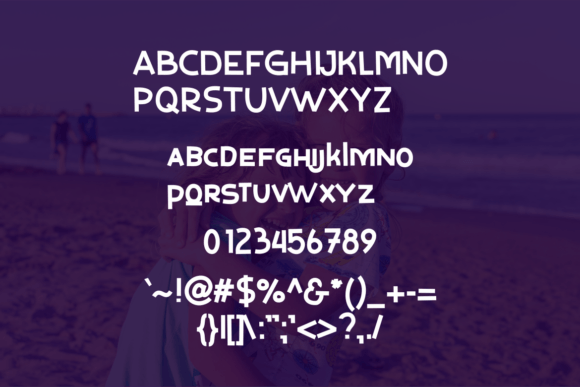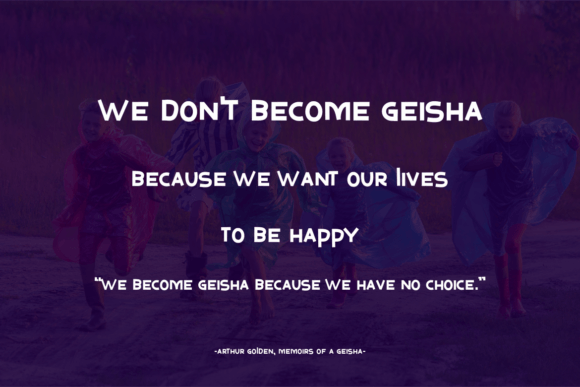
Introducing Artapa Font: Add a Touch of Whimsy to Your Designs
Are you tired of using the same old fonts in your designs? Do you want to add a touch of personality and whimsy to your projects? Look no further than Artapa Font, a playful and fun display font that’s sure to brighten up all your designs!
What is Artapa Font?
Artapa is a display font that’s all about having fun. With its whimsical and quirky style, this font is perfect for designers and crafters who want to add a little bit of personality to their work. Whether you’re creating a logo, a poster, or a social media graphic, Artapa Font is sure to make your design stand out.
Key Features of Artapa Font
- Playful and Fun: Artapa Font is designed to be playful and fun, making it perfect for designs that need a little bit of personality.
- Whimsical and Quirky: This font has a unique and quirky style that’s sure to add a touch of whimsy to your designs.
- Display Font: Artapa Font is a display font, making it perfect for headlines, titles, and other large text elements.
- Easy to Read: Despite its playful style, Artapa Font is easy to read, making it perfect for designs that need to communicate a message.
Uses for Artapa Font
Artapa Font is a versatile font that can be used in a variety of designs, including:
- Logos and Branding: Add a touch of personality to your logo and branding with Artapa Font.
- Posters and Flyers: Use Artapa Font to create eye-catching posters and flyers that grab attention.
- Social Media Graphics: Add some personality to your social media graphics with Artapa Font.
- Invitations and Party Decor: Use Artapa Font to create fun and playful invitations and party decor.
Why Choose Artapa Font?
With so many fonts to choose from, why should you choose Artapa Font? Here are just a few reasons:
- Unique Style: Artapa Font has a unique and quirky style that’s sure to make your designs stand out.
Tips for Using Artapa Font
Here are a few tips for using Artapa Font in your designs:
- Use it as a Display Font: Artapa Font is designed to be used as a display font, so use it for headlines and titles.
- Pair it with a Simple Font: Pair Artapa Font with a simple font to create contrast and make your design stand out.
- Experiment with Colors: Artapa Font looks great in a variety of colors, so don’t be afraid to experiment and find the perfect color for your design.